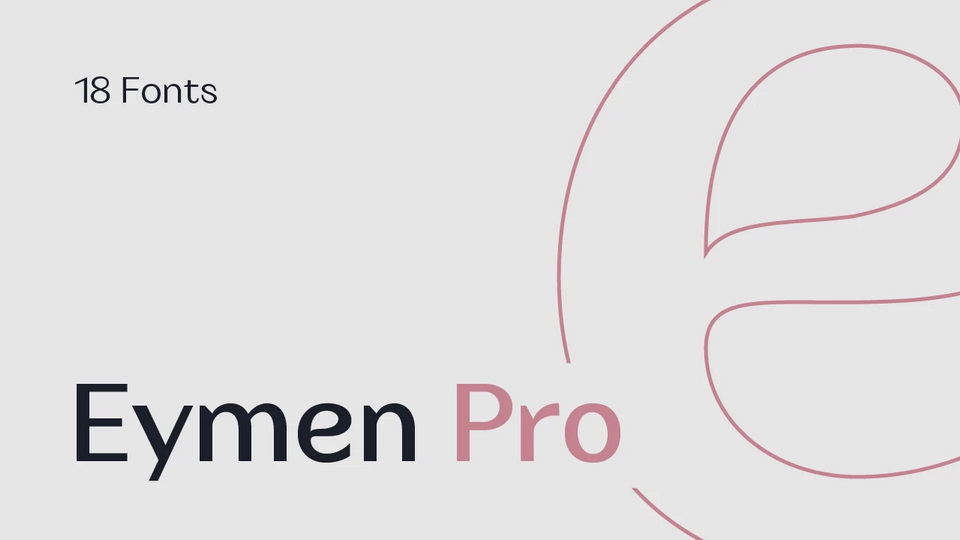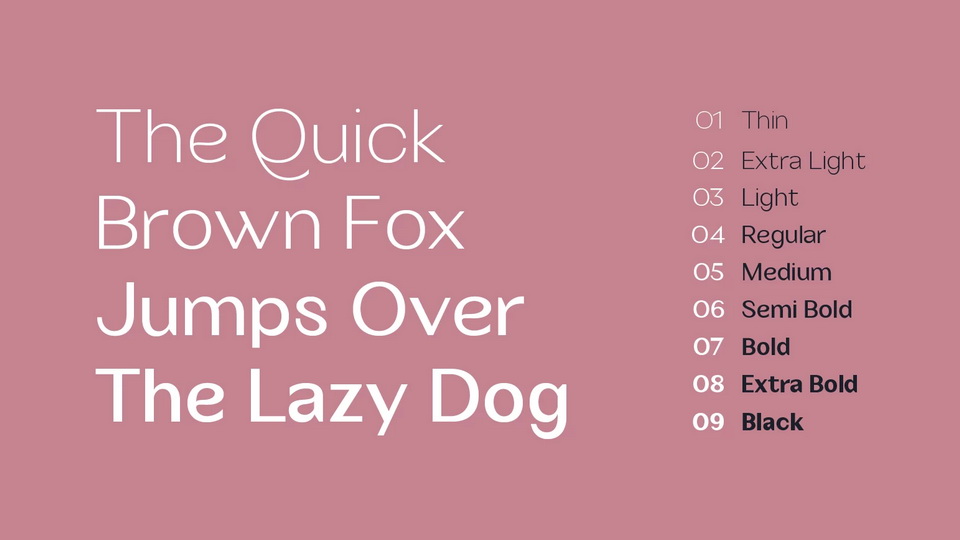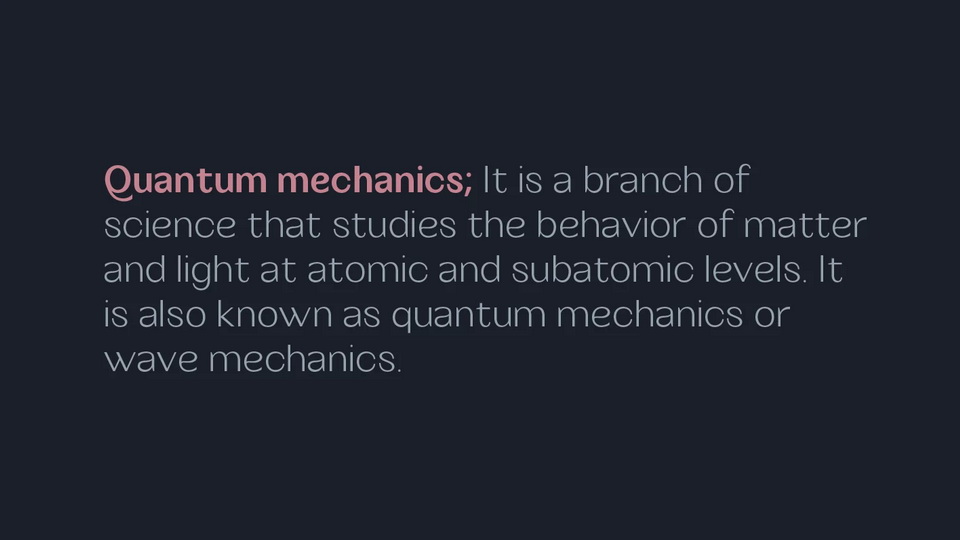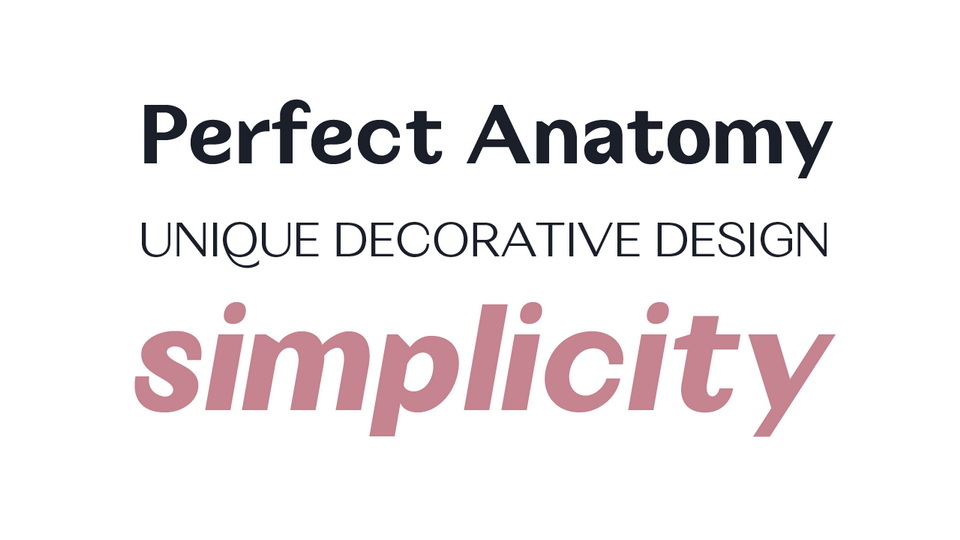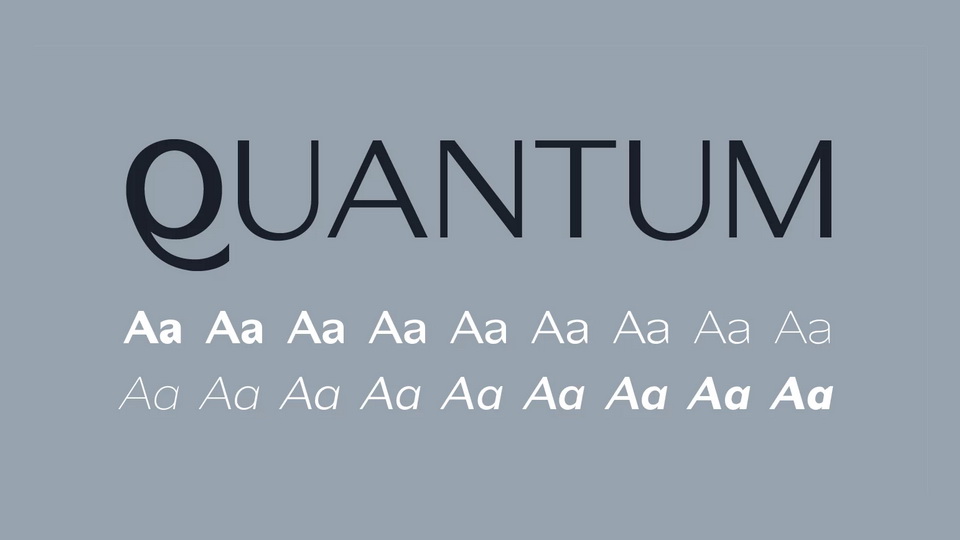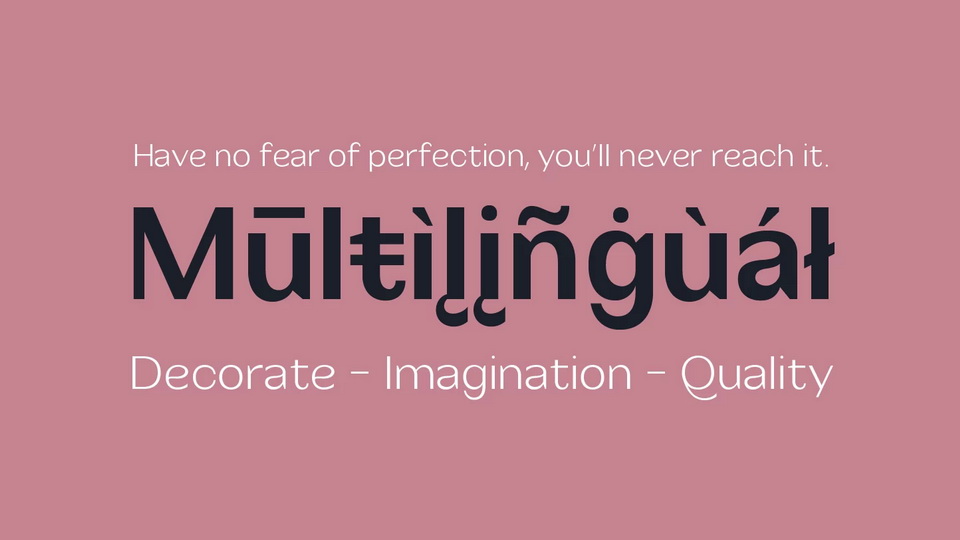
Eymen is a font that has both hard and fun dynamics. In fact, it was primarily dedicated to cool magazine paragraphs and content in the textile industry. But thanks to its large family structure, it can be used easily in many sectors and products. In addition, Eymen can be your companion in your heavy, aesthetic logo designs.
The free version of Eymen Pro includes Light weight, the full family comes in 9 weights with matched Italics.
In addition, the Eymen Pro family offers you alternative glyphs, ligatures and more. Thanks to its wide character structure, it supports you for all kinds of languages.